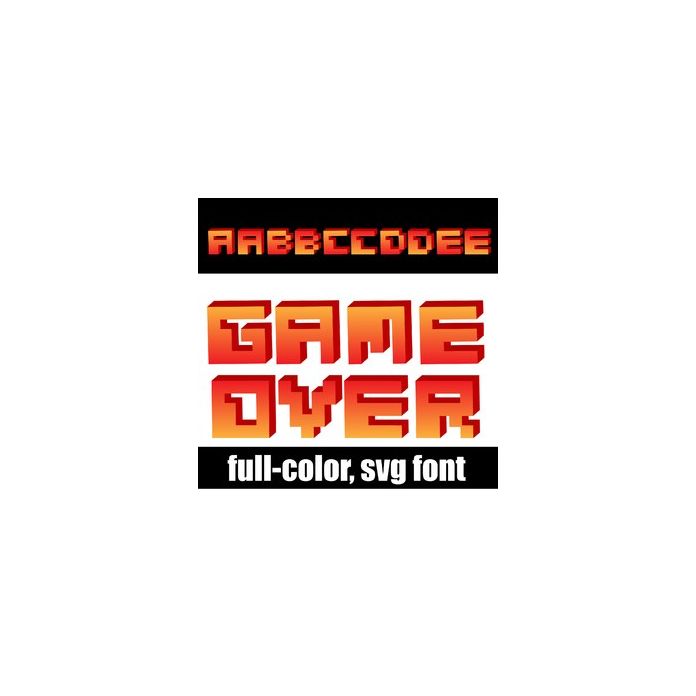
This full-color font features pixelated lettering in a red/yellow gradient. The gradient flows in reverse on the lowercase. This font works best for titles, displays, posters and more. Please note color fonts will show as black in non compatible programs. This font type is compatible with Silhouette Studio.